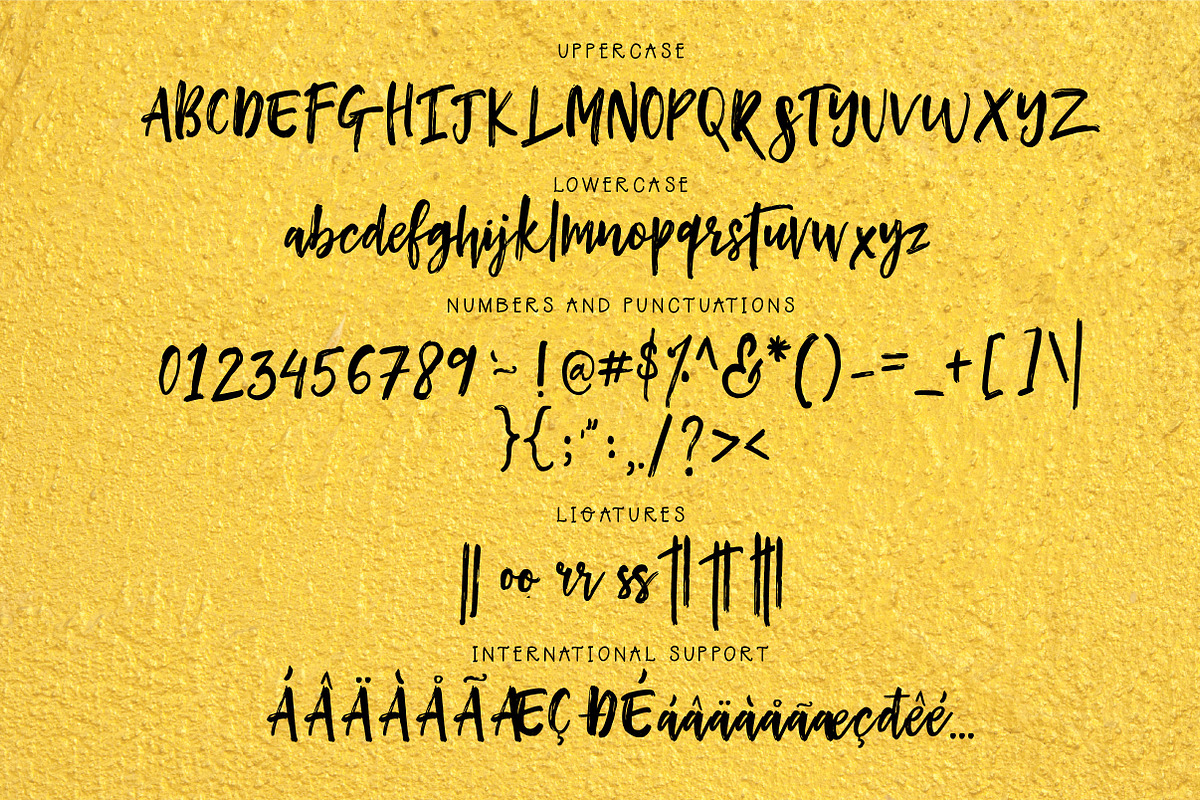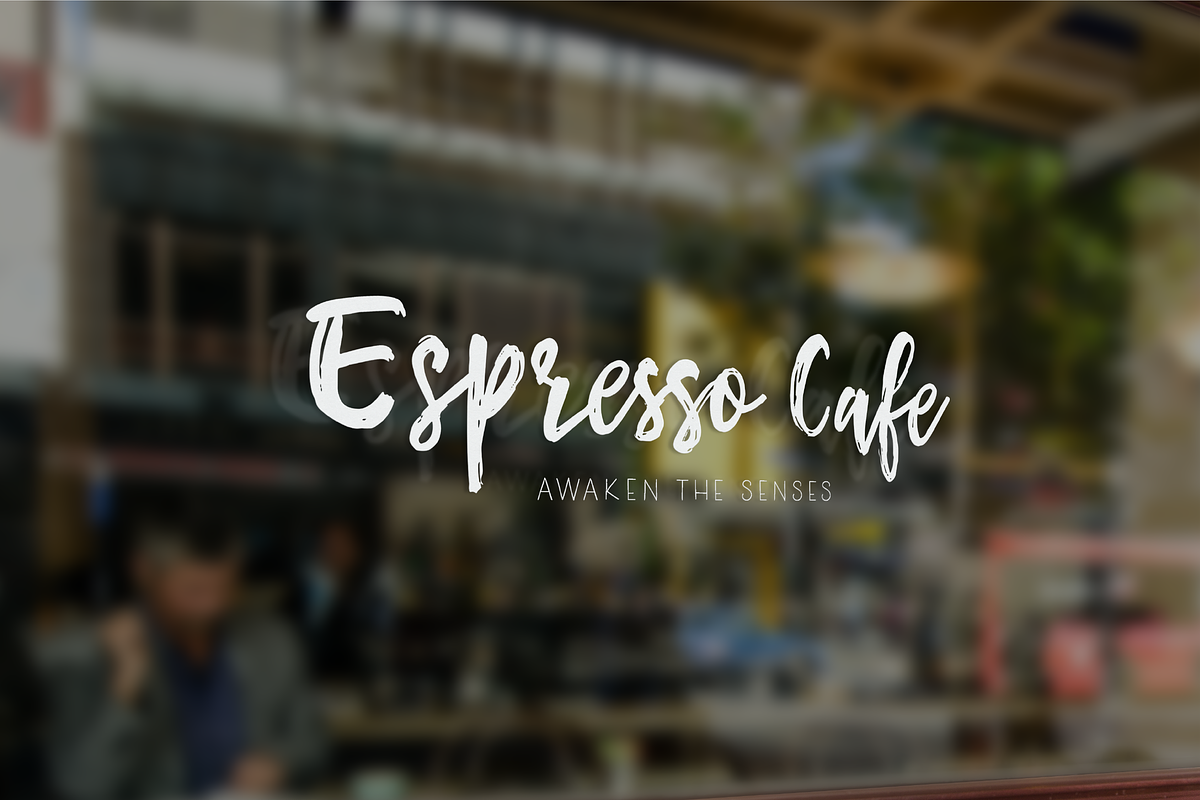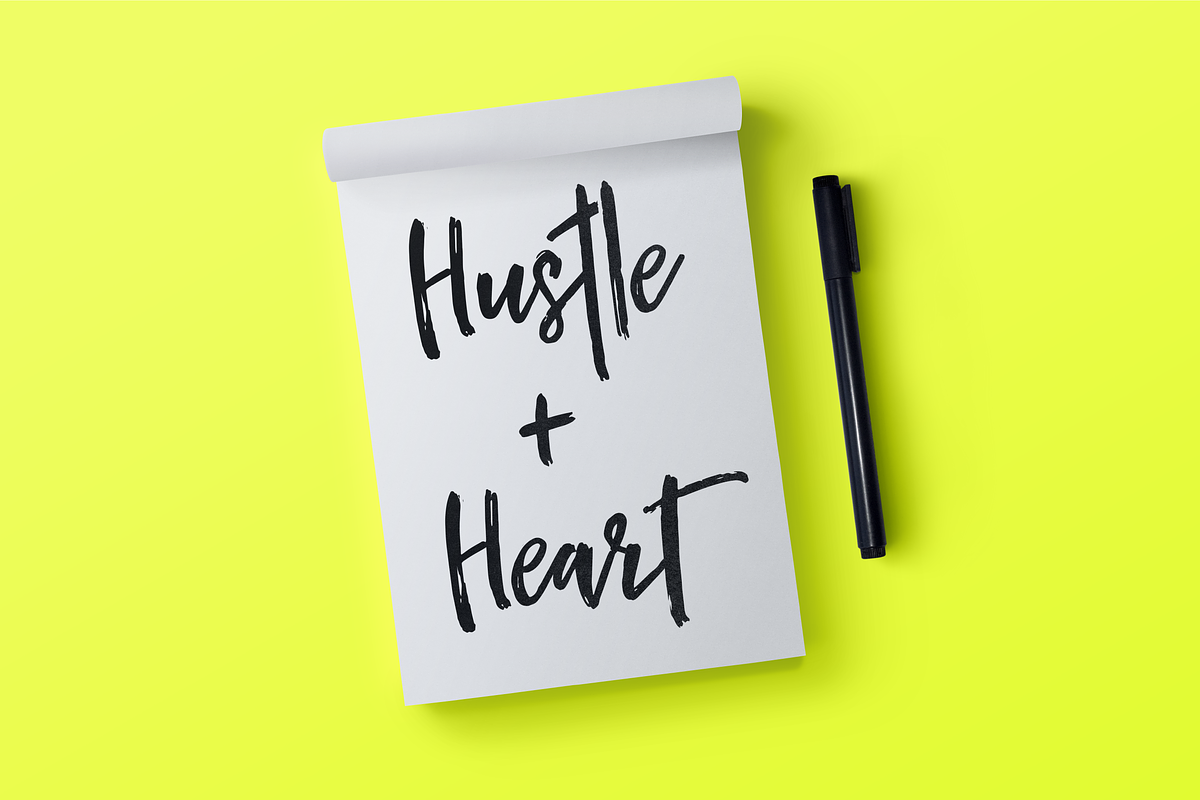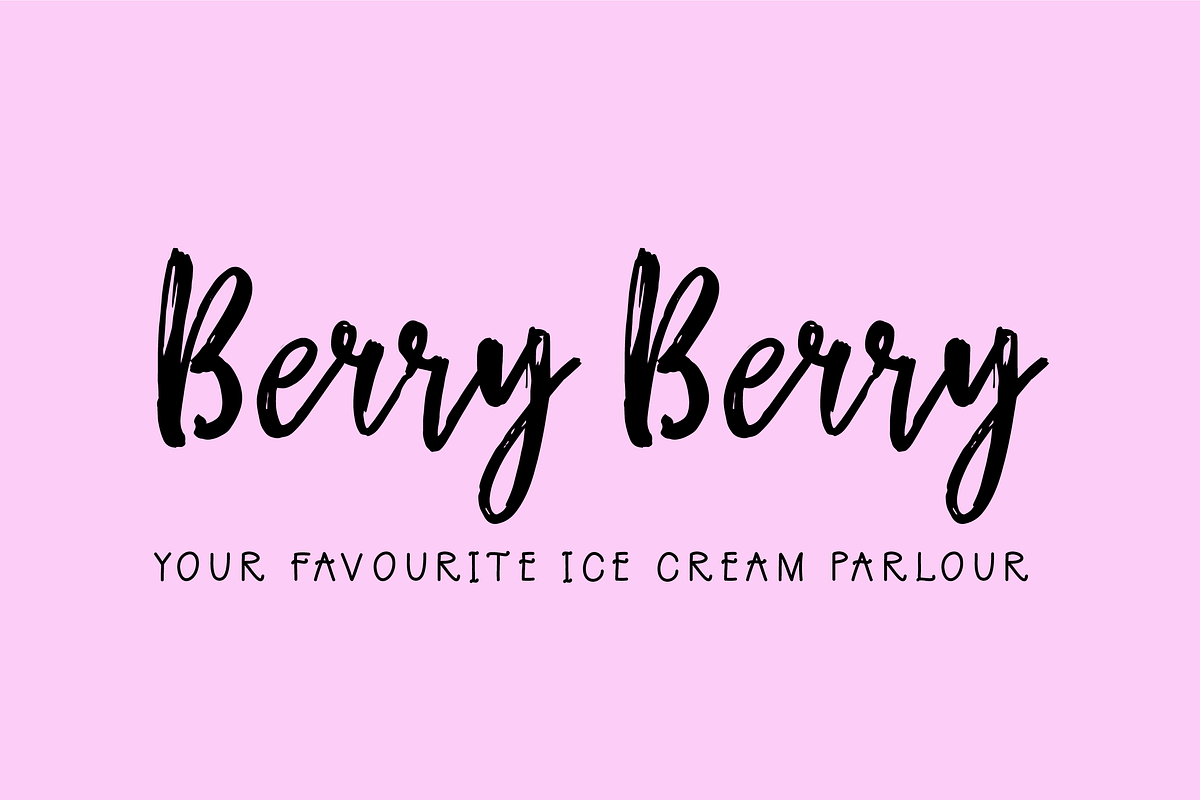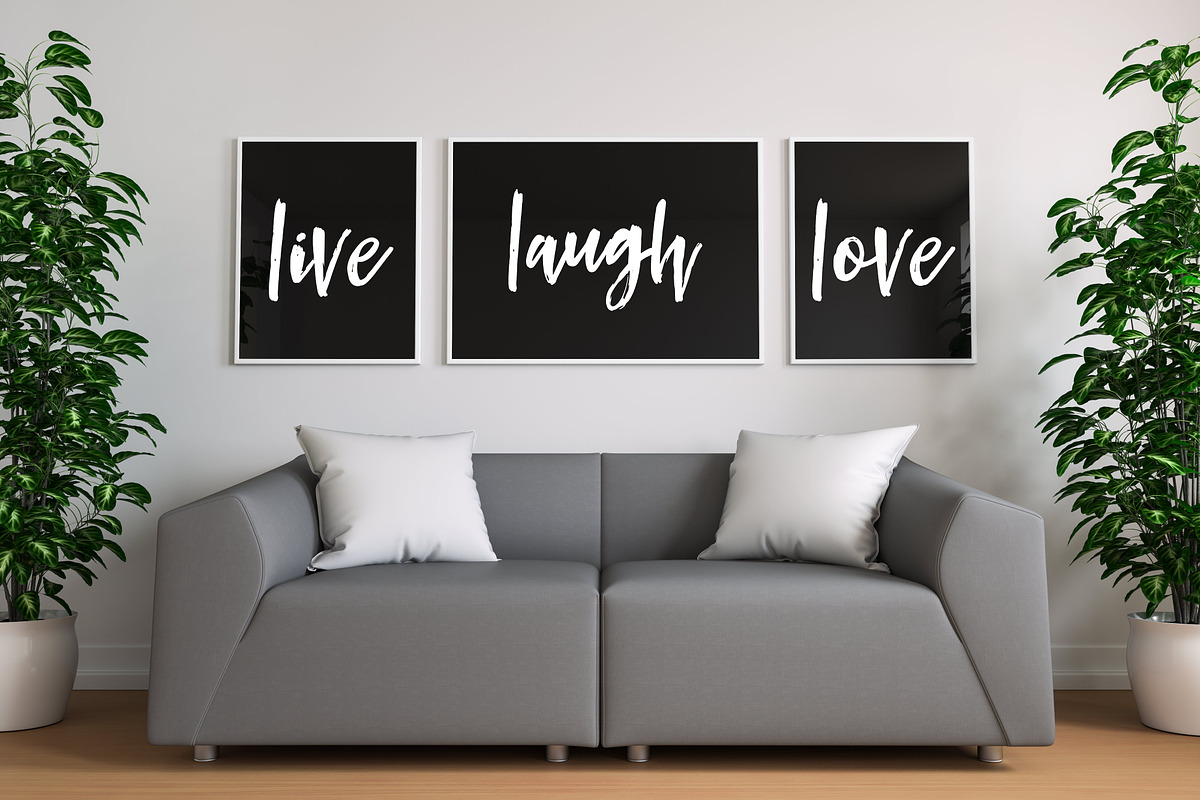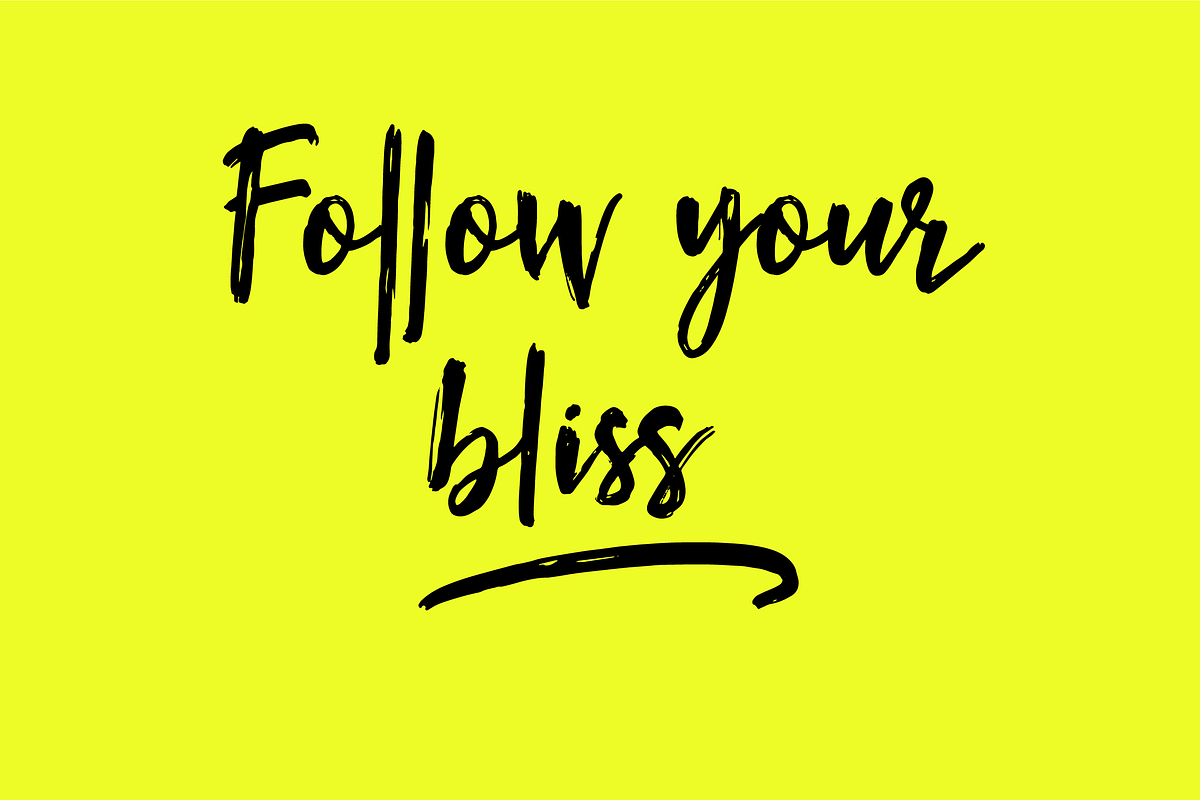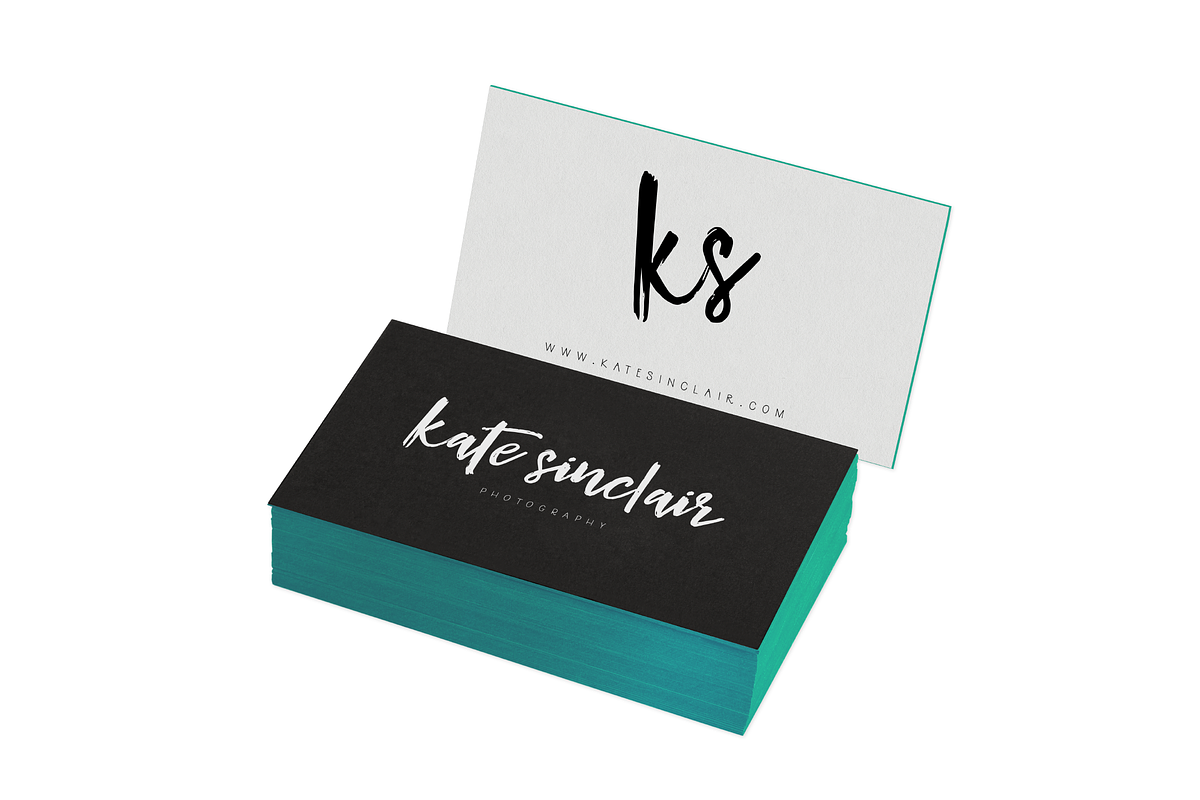
Hey Buttercup! Font + Extras
Presenting Hey Buttercup!, a classy, brush textured handwritten font. With it's quick brush strokes and cursive style, Hey Buttercup! makes for the perfect font, idea for all kinds of projects from branding, to packaging to personal projects.
Hey Buttercup! is sure to become your go-to font for all your logos, business cards, photo overlays, prints, packaging, etc.
Hey Buttercup! font is accompanied with extras - swashes that will add even more charm to your designs.